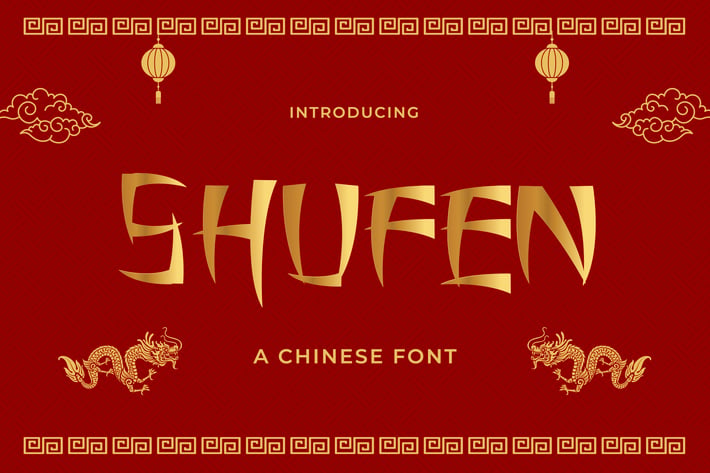
Shufen – a Chinese Font
Shufen is an awesome Chinese-inspired display font. It has great readability and will add a striking touch to any design! It will look awesome on any design, print, or restaurant brand!
– Small Caps
– Alternates
– Ligature
– Multilingual Support